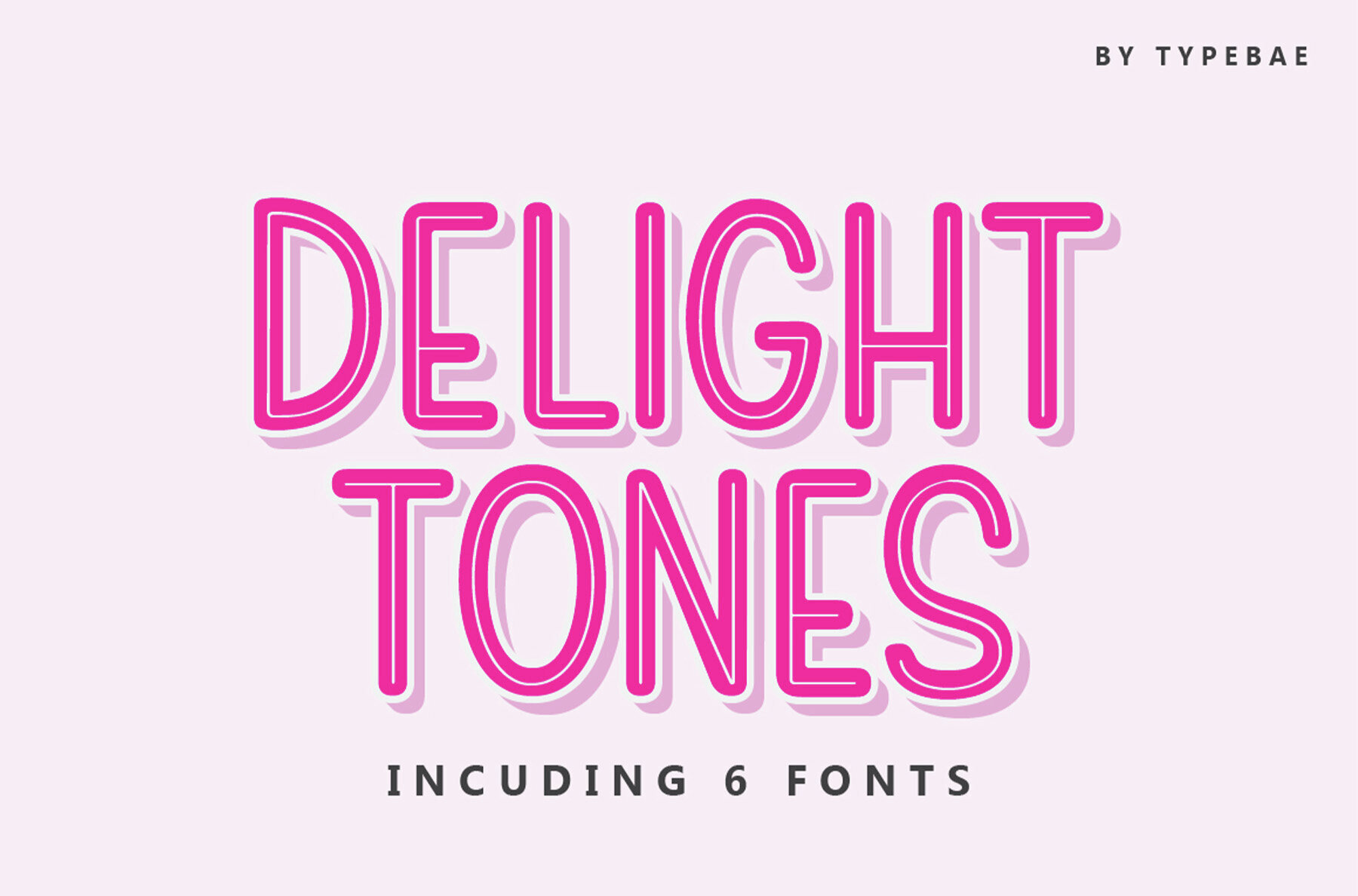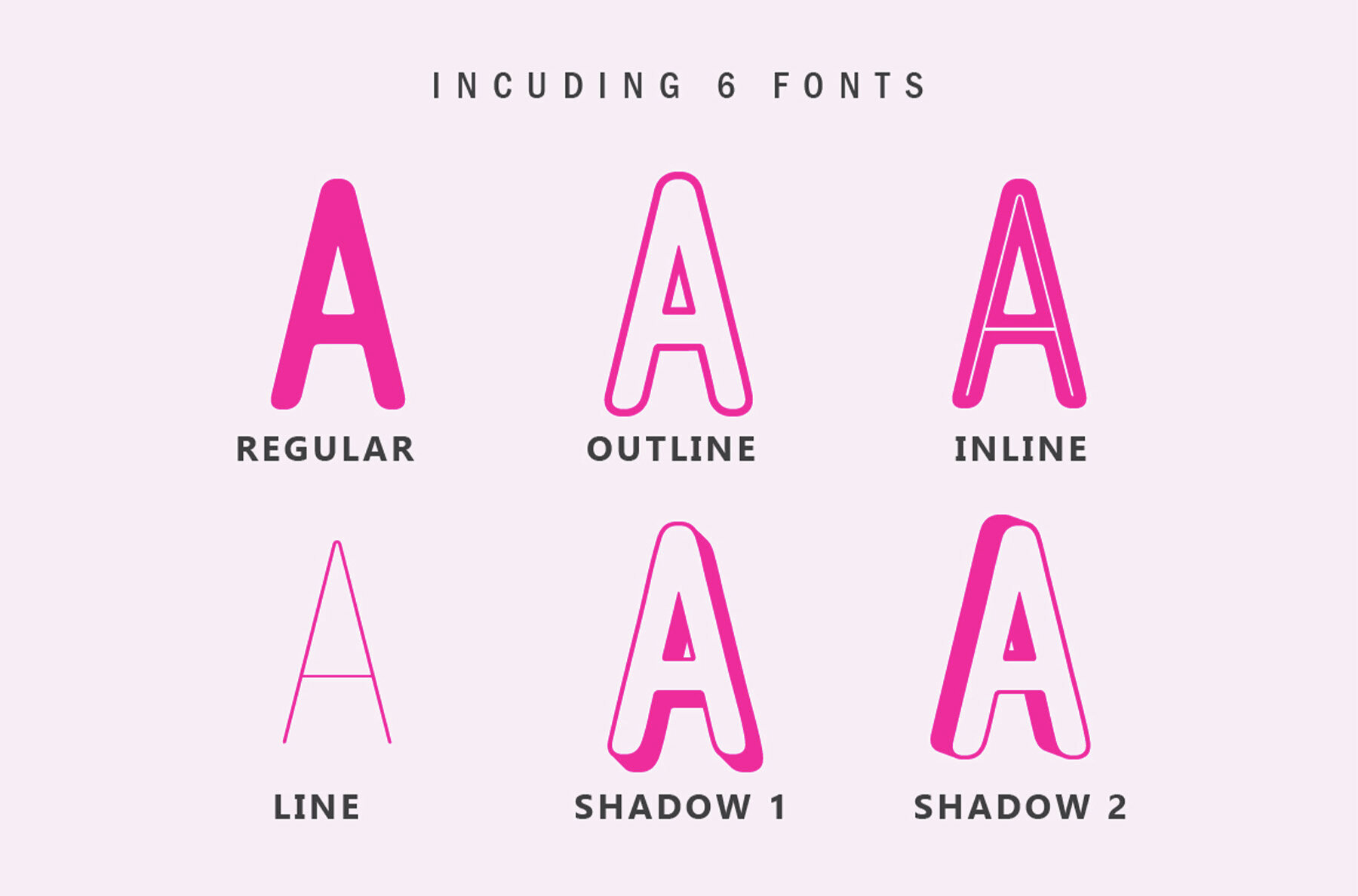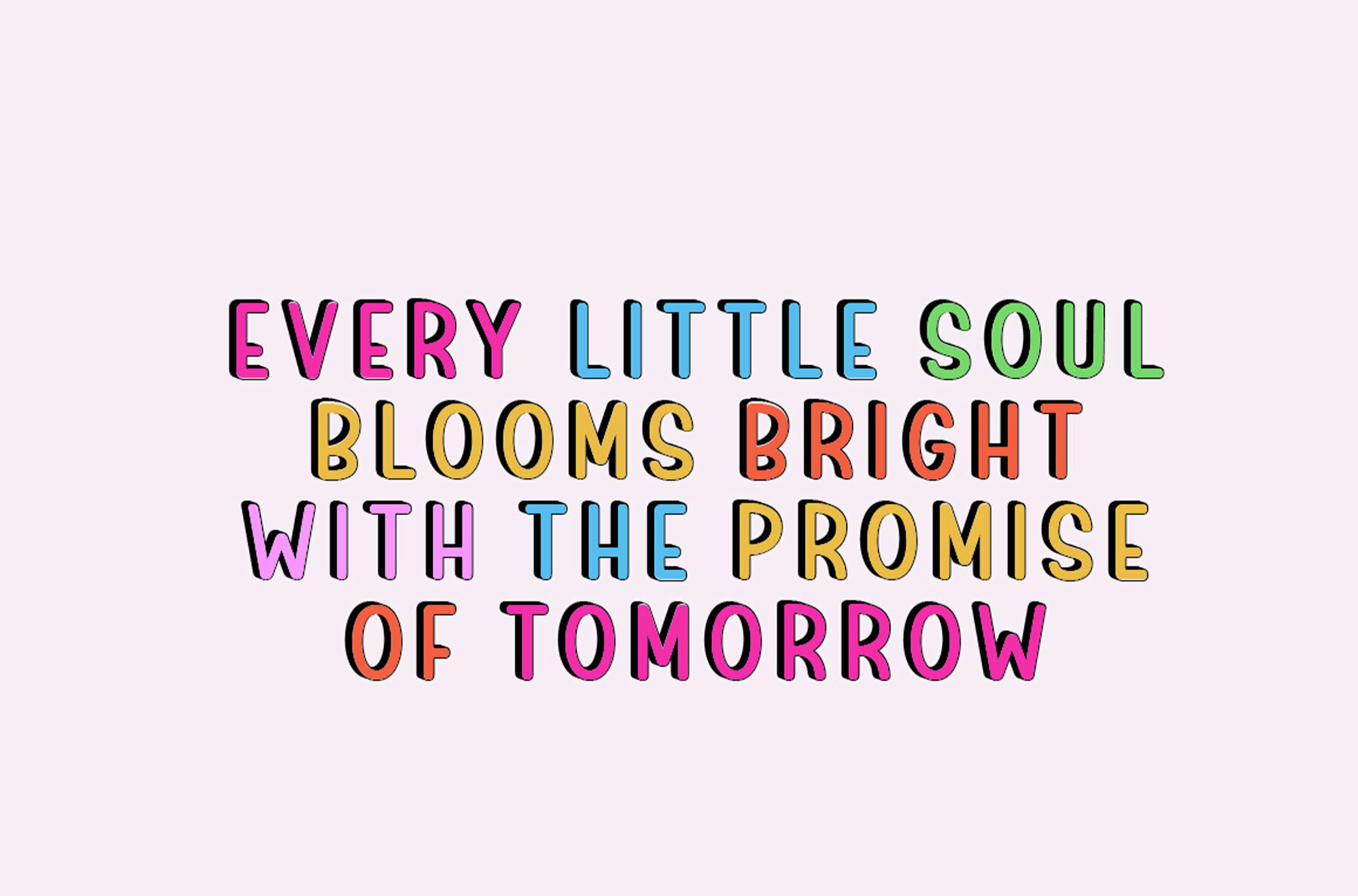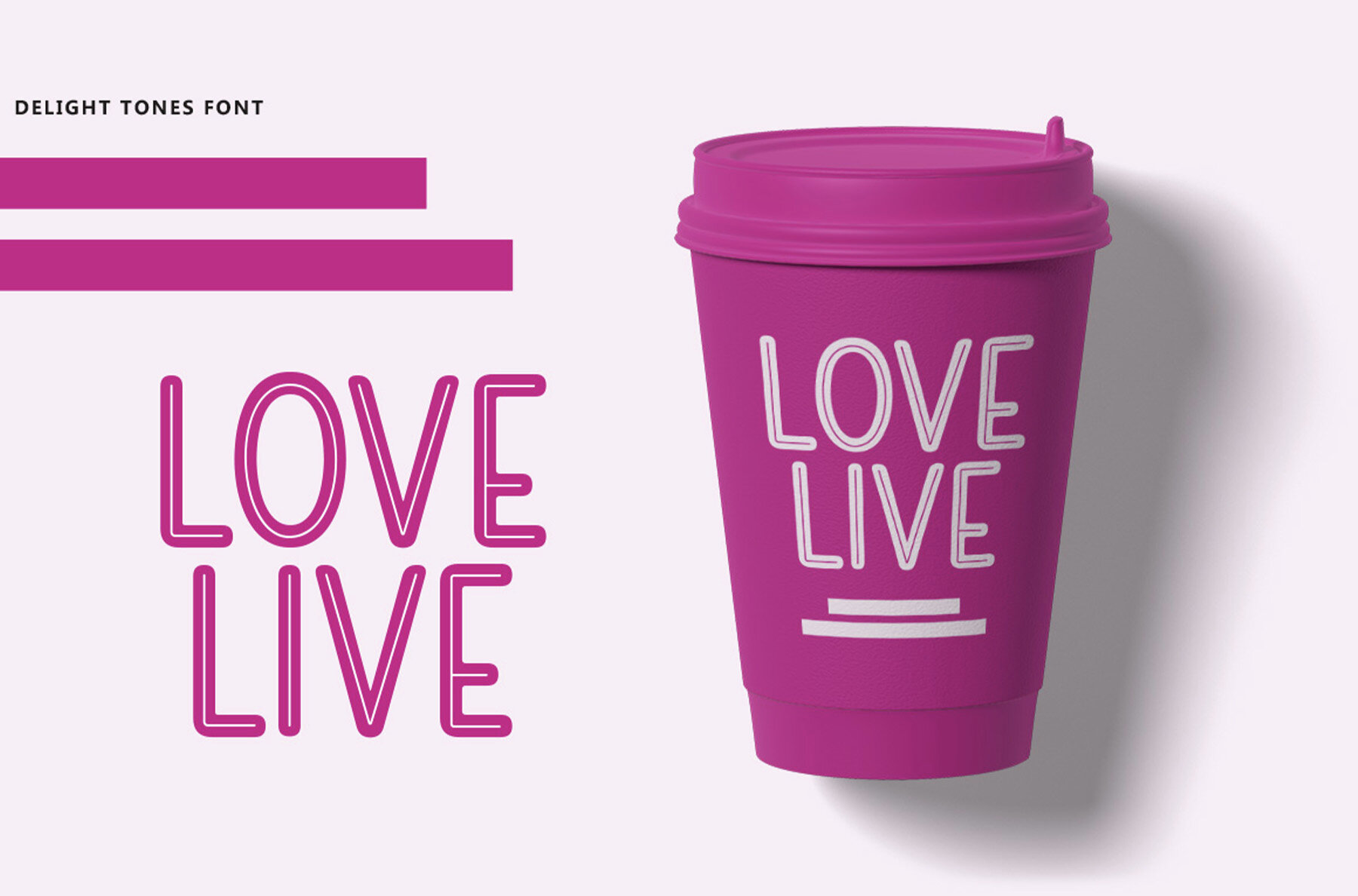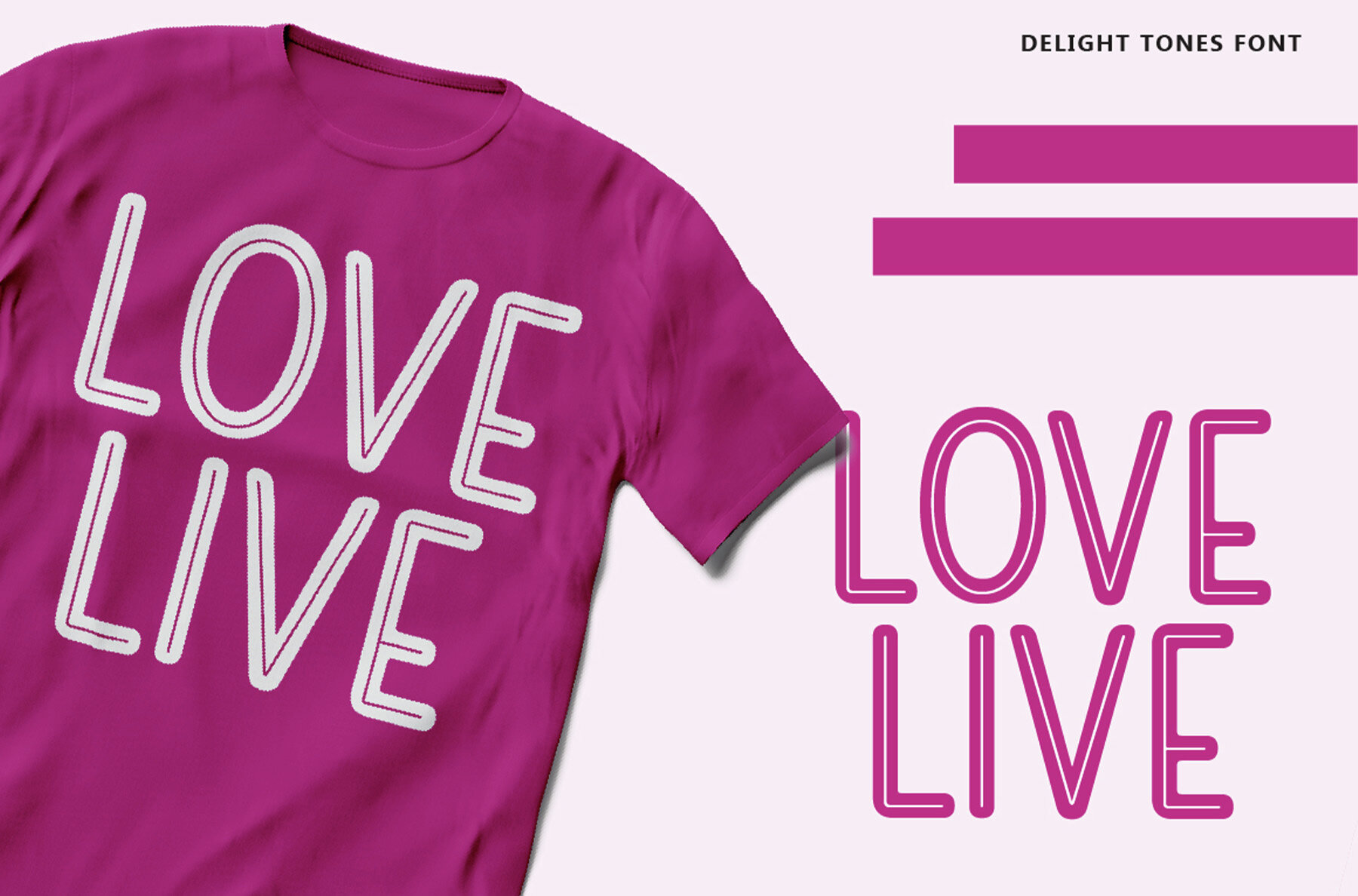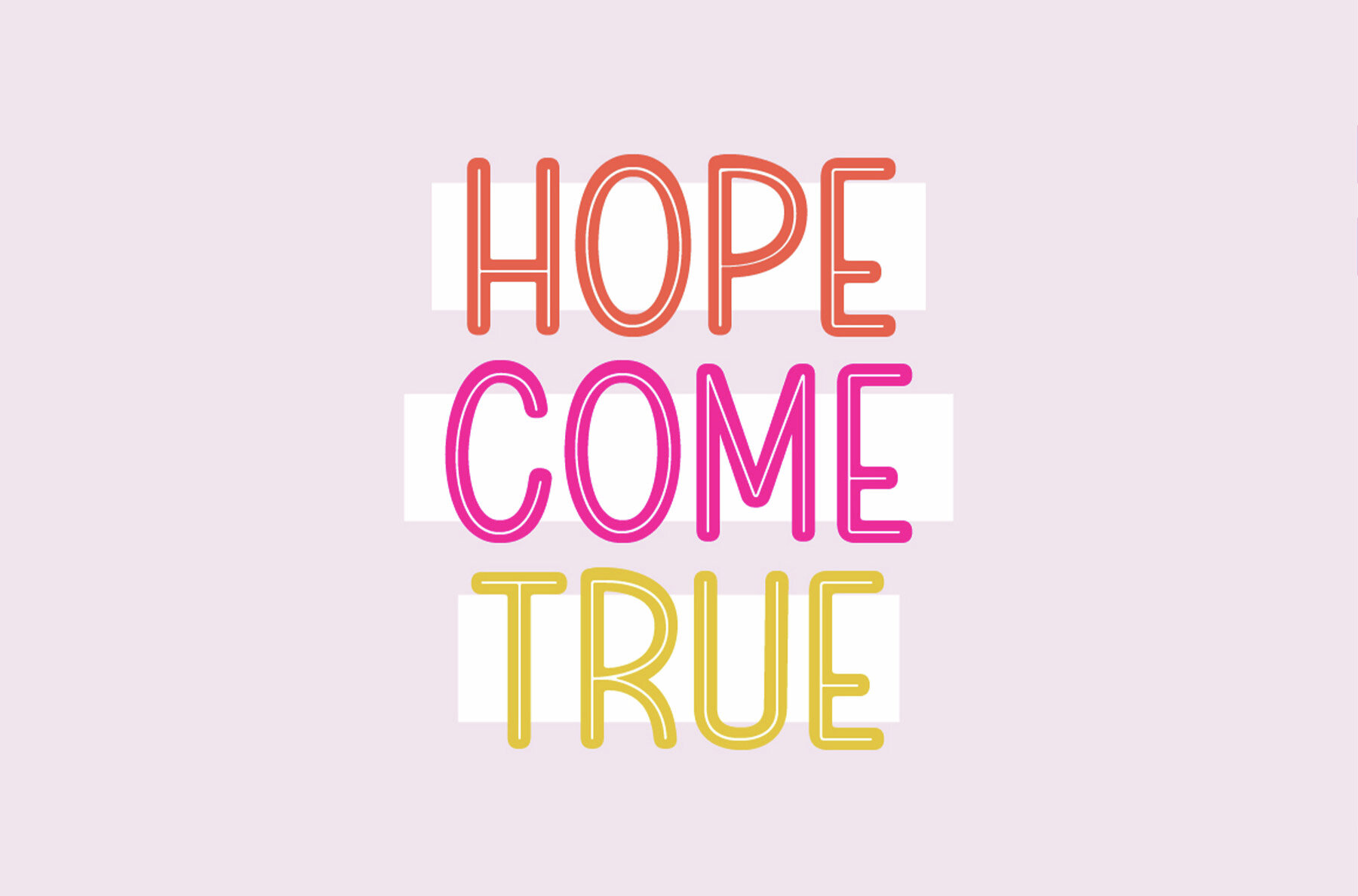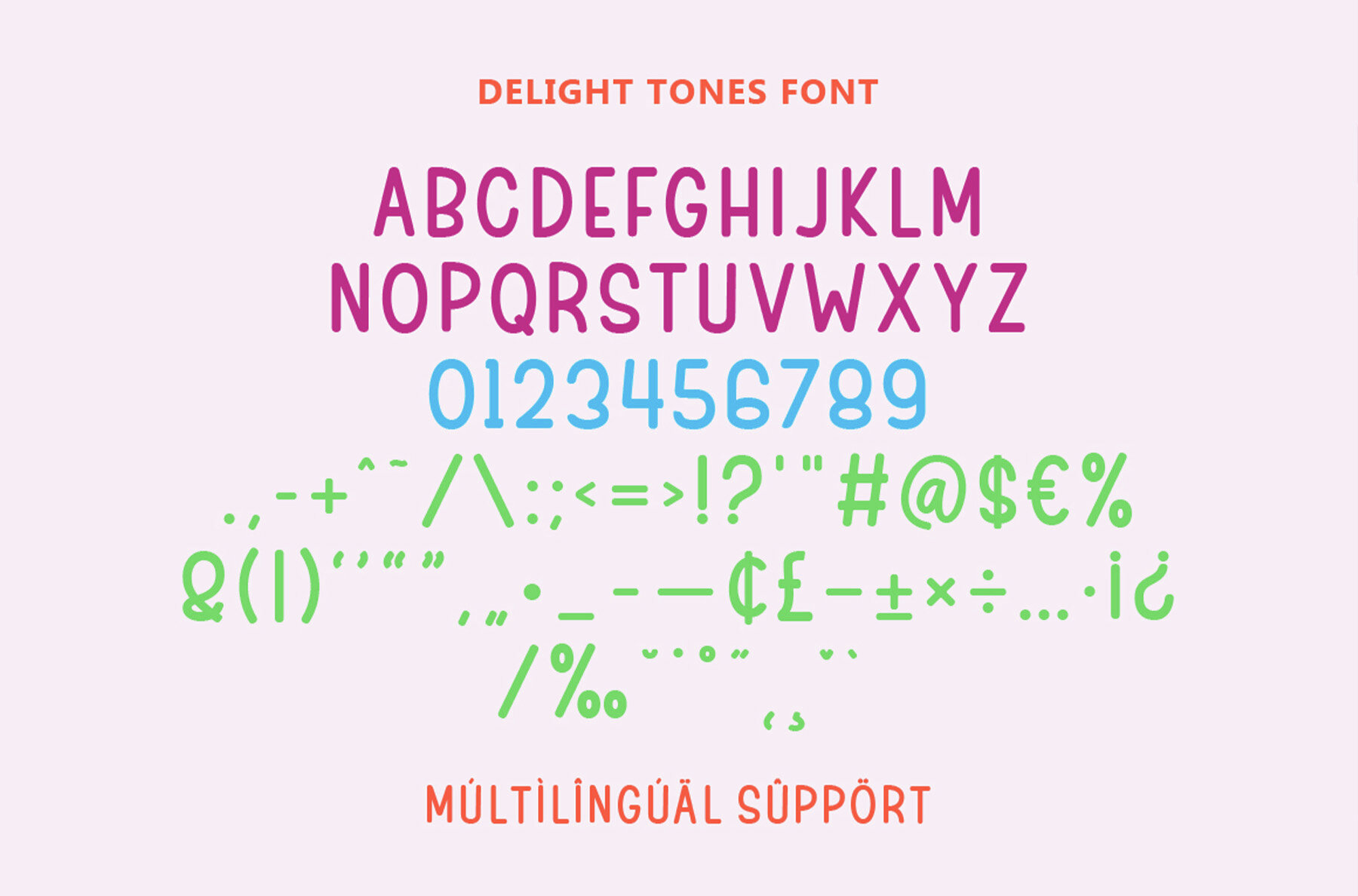
Delight Tones Font
Delight Tones brings a playful, hand-drawn character to any project. Its lighthearted shapes and quirky details create a joyful atmosphere, making it an ideal choice for designs that need a touch of fun and personality. From birthday invitations and school projects to summer-themed graphics and holiday décor, this font adds a bright and inviting feel. Whether you’re designing t-shirts, stickers, crafts, or digital art, Delight Tones offers the flexibility to match your creative vision. Multiple styles, including Regular, Inline, Line, Outline, and two Shadow options, let you mix and match for unique results. A full suite of alphabet characters, numerals, punctuation, and multilingual support increases its range, ensuring accessibility for diverse audiences.Delight Tones Hand Drawn Display Font